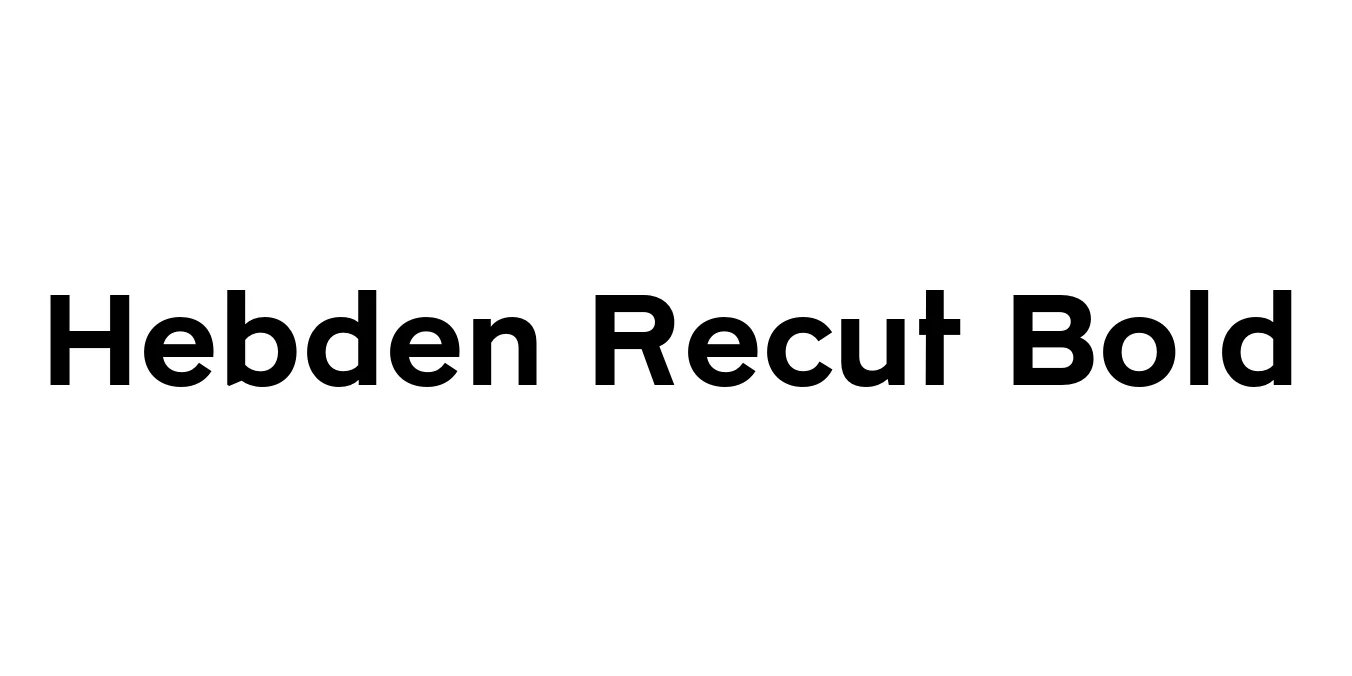
Hebden Recut Bold
Designed by Jonathan Hill
| Category | Display Sans Serif |
Hebden Recut Bold is a striking digital revival inspired by the original hand-lettered signage and printing found in the early 20th century. Rooted deeply in the Arts and Crafts movement and the Edwardian era, this typeface balances geometric structure with an artistic, hand-crafted aesthetic. The bold weight emphasizes the high-waisted letterforms and distinctive proportions that give the font its unique historical character.
Modernized for contemporary use, this "recut" version ensures that the intricate details of the vintage letters translate perfectly to digital displays and high-resolution print. Its strong verticality and decorative flair make it an exceptional choice for designers looking to evoke a sense of heritage, craftsmanship, and timeless elegance in their graphic projects.
Hebden Recut Bold Best Uses
Perfect for bold magazine headlines and sophisticated title sequences.
Ideal for logos that require a heritage or artisan-inspired look.
Excellent for premium labels and artisanal product packaging.
Highly effective for event advertisements and theatrical promotion.